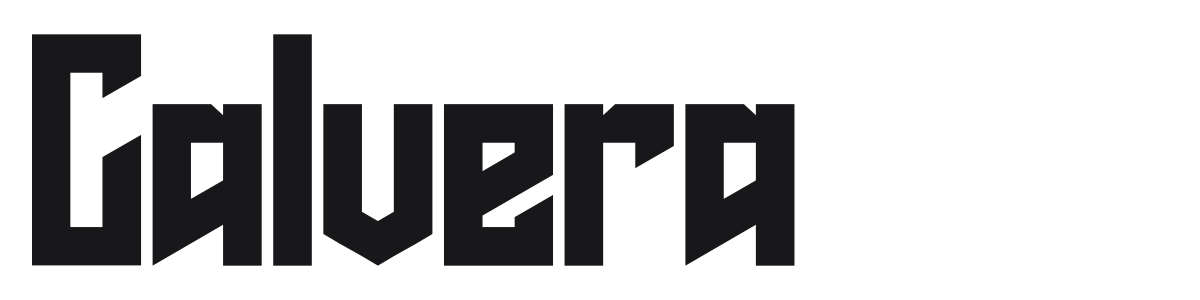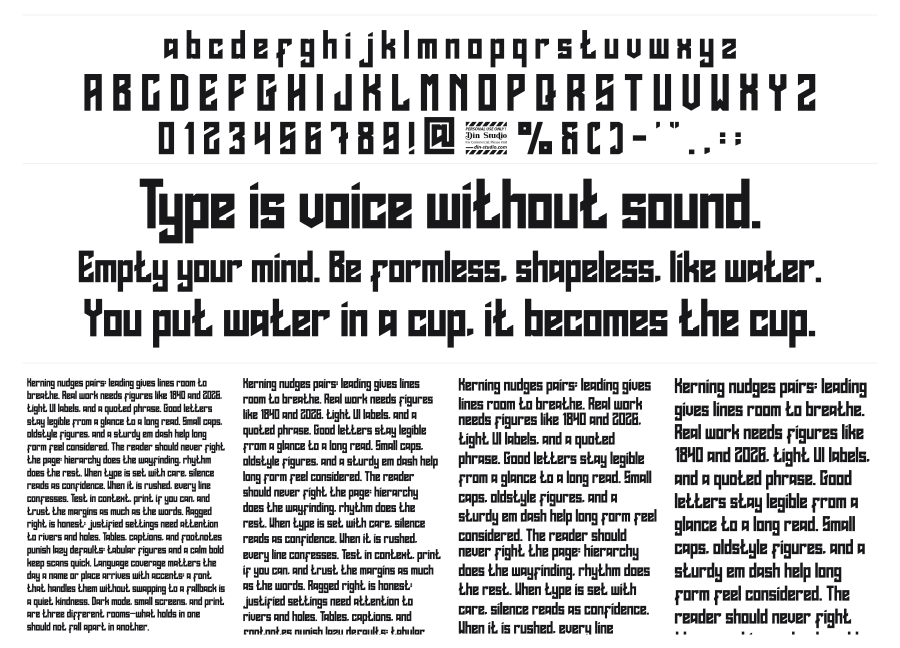
Calvera
Calvera is a heavy condensed display font built around bold geometric construction with sharp angular cutouts carved into the strokes. That notched, fragmented quality gives it an unmistakable esports and gaming personality without slipping into cliché. Best used large for logos, team branding, and high-impact headlines.